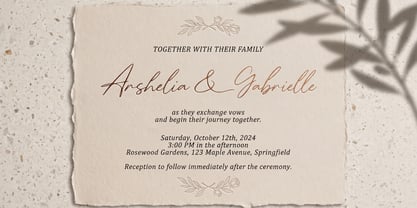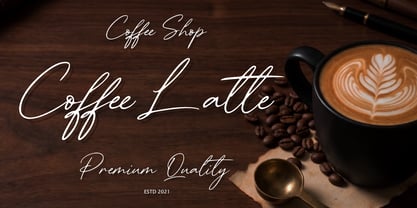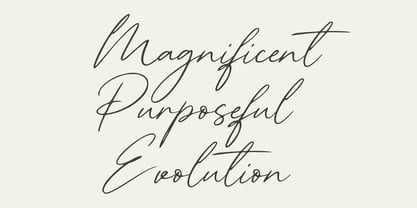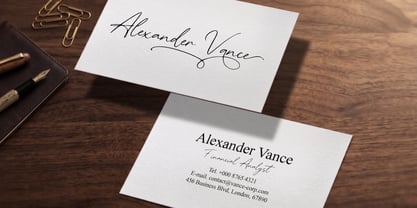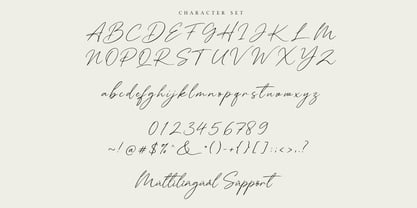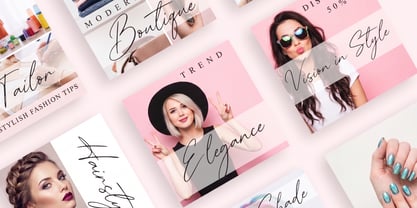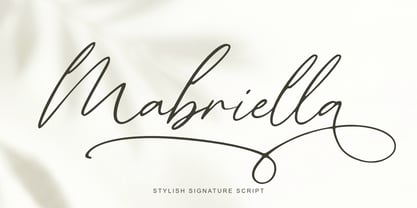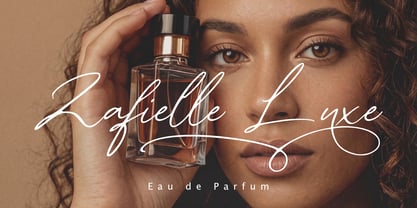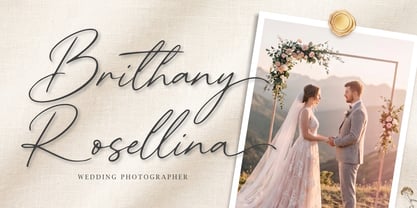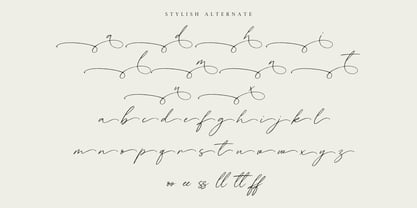
Mabriella
by Sealoung
The Mabriella Font Family was designed by Saiful Anwar and published by Sealoung. Mabriella contains 1 styles. More about this family
Mabriella Script is a refined signature font that captures elegance, charm, and a natural handwritten flow. Designed with smooth curves and stylish strokes, Mabriella Script brings a modern yet timeless feel to your creative work. This font is a perfect choice for a wide range of design needs such as logos, branding, invitations, wedding projects, magazine layouts, social media graphics, product packaging, labels, photography watermarks, quotes, and many other creative applications that require a sophisticated touch.